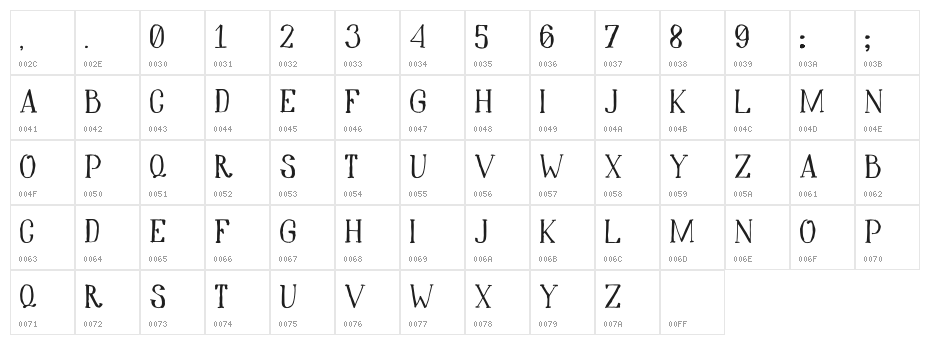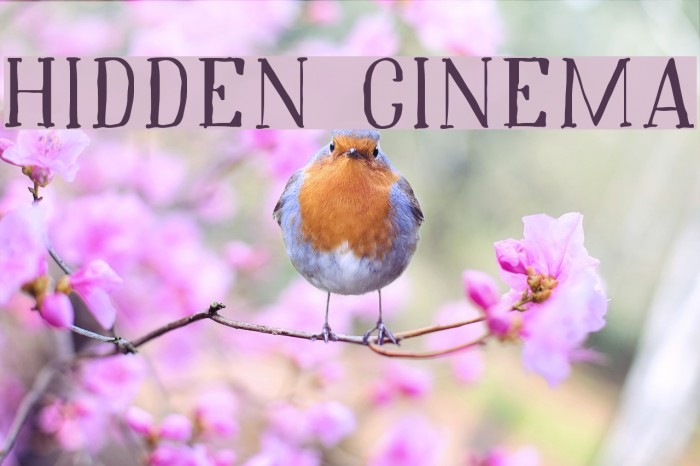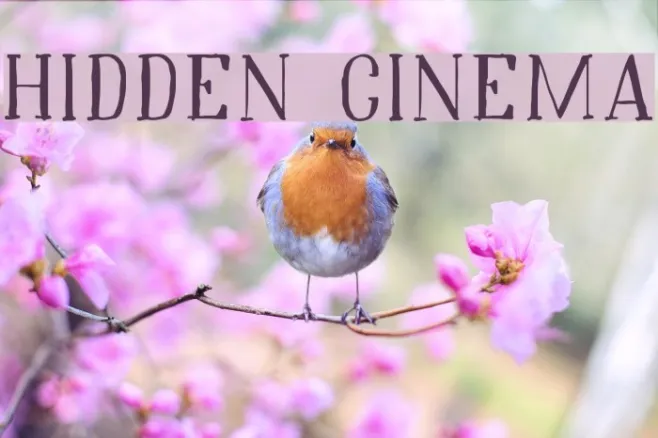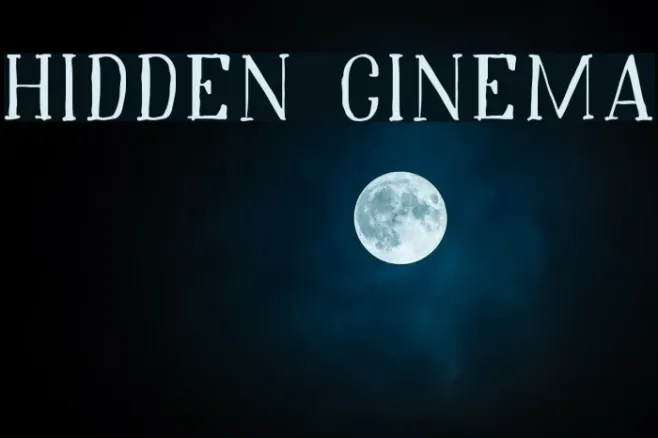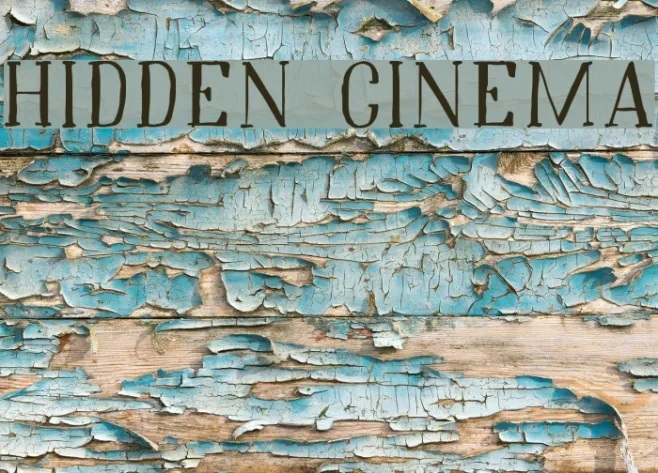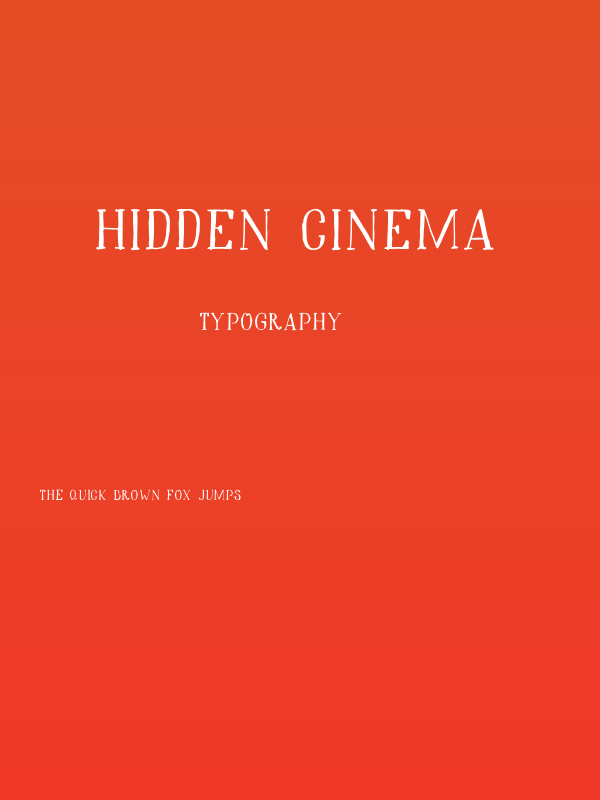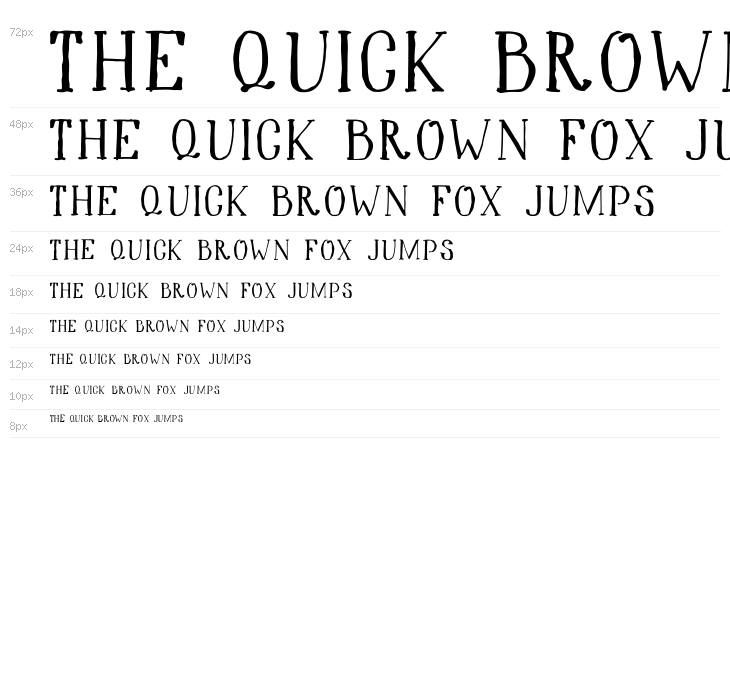
Hidden Cinema Font
Hidden Cinema Description
This font features a vintage, distressed style with a hand-drawn appearance. The characters are bold and slightly irregular, giving them a unique, artistic flair. The uppercase letters have a strong presence with varying stroke widths, creating a dynamic look. The numbers maintain the same distressed aesthetic, adding to the overall cohesive design. The font's imperfections and rough edges contribute to its charm, making it ideal for projects that require a touch of nostalgia or a handcrafted feel. Its distinctive style is reminiscent of old cinema posters or vintage signage, capturing attention with its bold and expressive character.
| Proposed Projects | Ideal for vintage-themed posters, retro branding, artistic projects, and signage. |